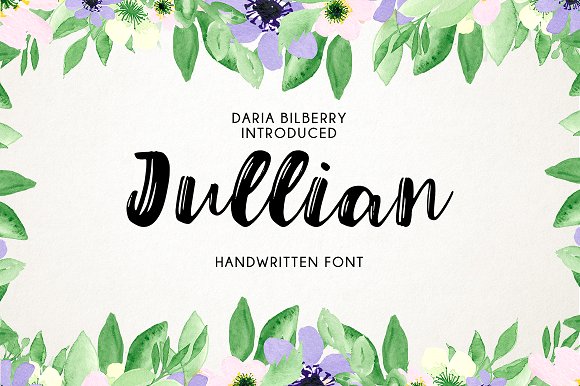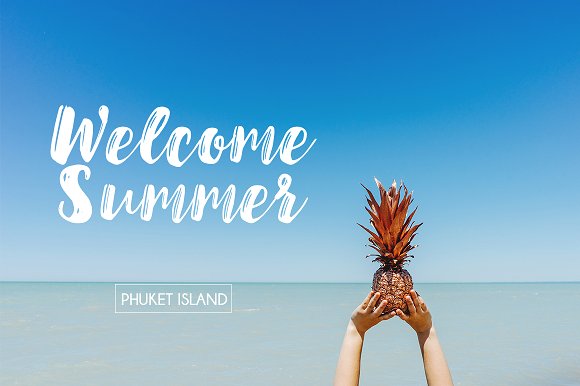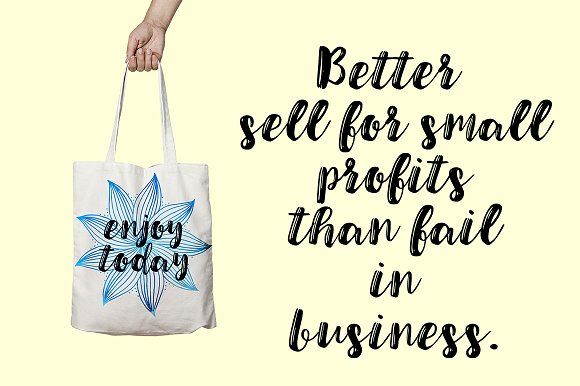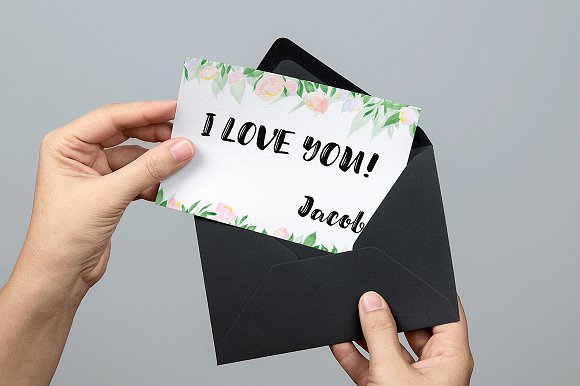
Jullian Script Font
Meet new Modern handwritten typeface Jullian!
JULLIAN – a new handwritten font. Very suitable for greeting cards, branding materials, business cards, quotes, posters, and more!